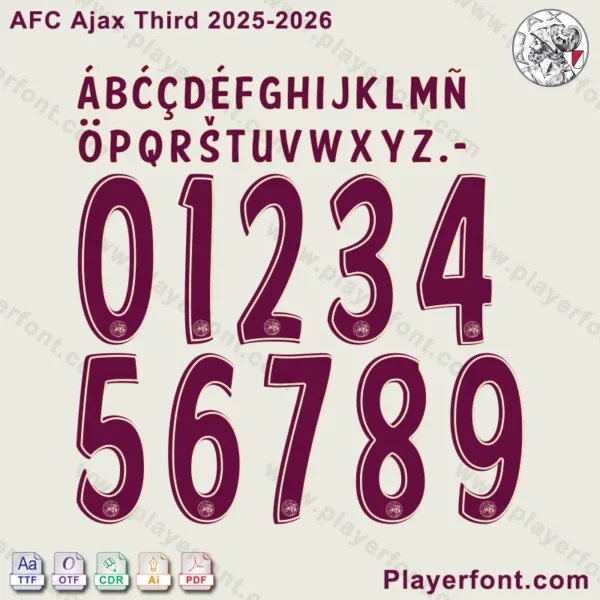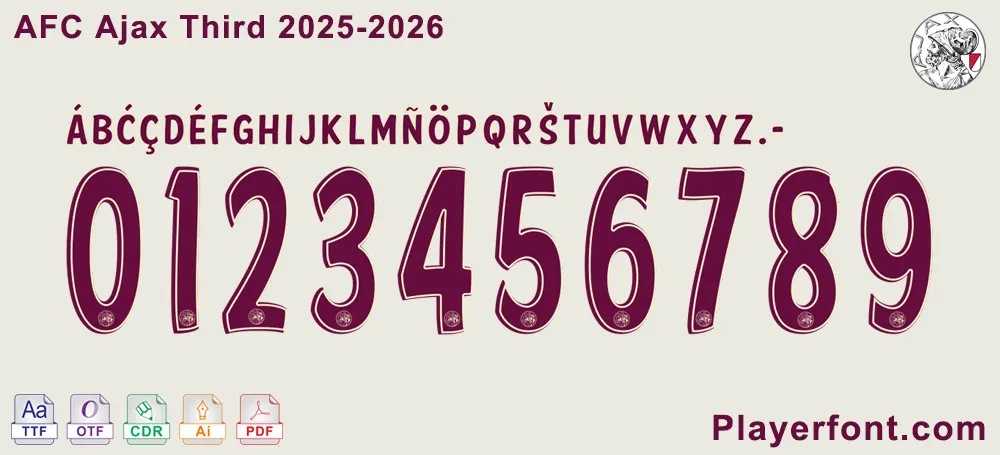
AFC Ajax Third 2025-2026 Font Download
Step up your design game with the AFC Ajax Third 2025-2026 font, a must-have for every fan and graphic designer. This comprehensive download pack gives you everything you need to reproduce the exact style of the numbers and lettering seen on the team’s third kit.
Official AFC Ajax 2025-2026 third kit numbers and letters, featuring the unique maroon font with the club logo.
The full alphabet and number set for the AFC Ajax 2025-2026 third kit.